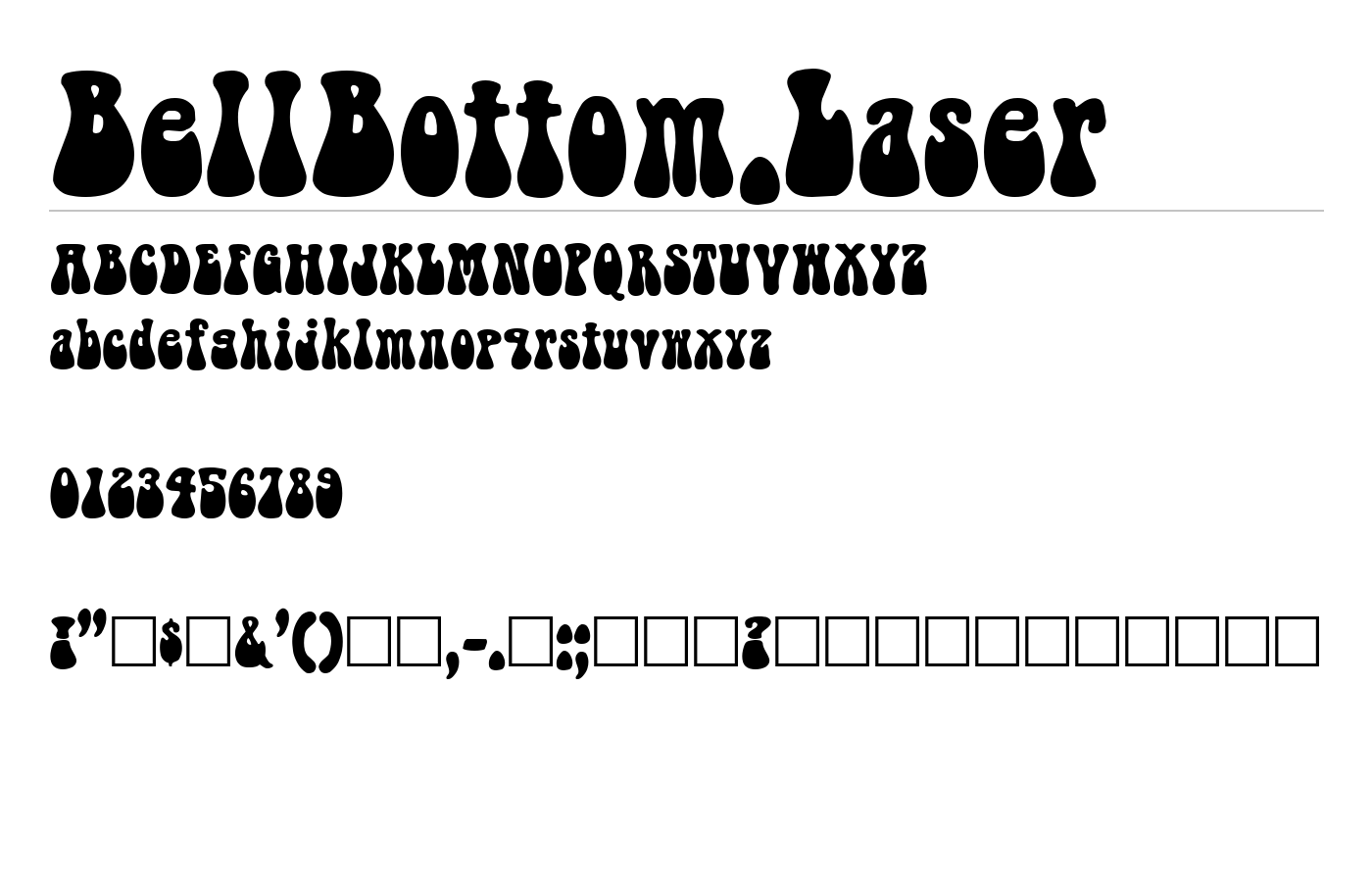
BellBottom.Laser is a bold, playful display font with a strong retro vibe reminiscent of 1960s and 70s psychedelic styles. Its thick, curvy letterforms with exaggerated bell-shaped proportions create a fun and distinctive look perfect for eye-catching headlines, posters, and branding that seeks a nostalgic, groovy personality. This font works best where bold character and a vintage flair are needed to inspire creativity and lighthearted energy.
BellBottom.Laser Font
About BellBottom.Laser Font